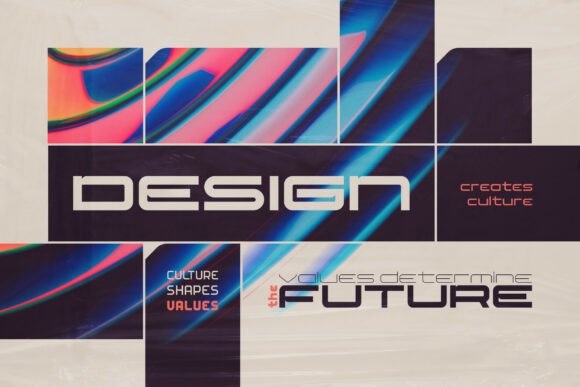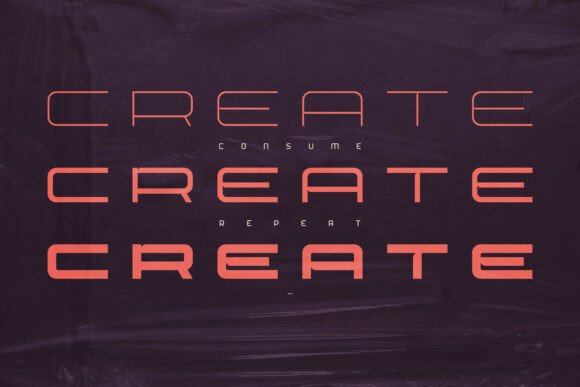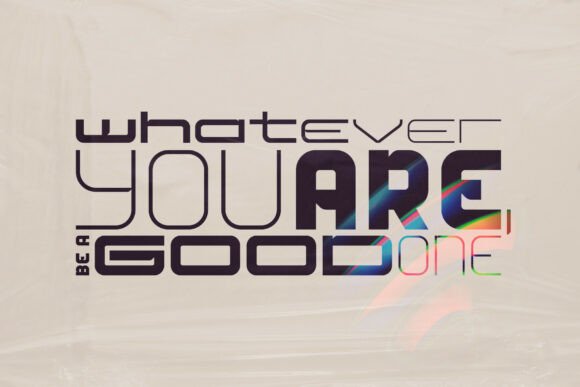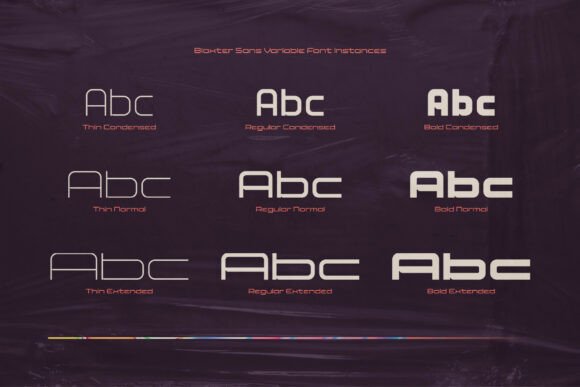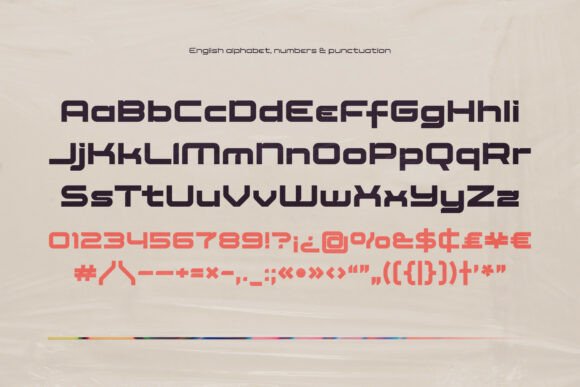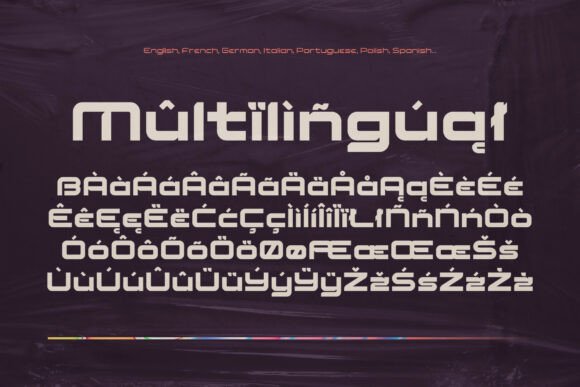
Introducing Bloxter Sans: The Futuristic Typeface for Modern Design
In the realm of typography, the right font can elevate a design from ordinary to extraordinary. For those seeking a bold, geometric voice that screams futuristic tech, look no further than the Bloxter Sans font family. This innovative typeface is specifically designed to meet the demands of modern design, offering a versatile and visually striking solution for UI, posters, logos, and more.
A Futuristic Typeface with Rounded Square Shape
Bloxter Sans is a variable sci-fi sans serif font that draws inspiration from square forms and cutting-edge technology. Its rounded square shape gives it a unique and approachable feel, setting it apart from more traditional typefaces. With a focus on bold geometry, Bloxter Sans is perfect for designers looking to add a touch of futurism to their work.
Wide Range of Variations
One of the standout features of Bloxter Sans is its impressive range of variations. The font family includes nine different weights and width versions, allowing designers to choose the perfect style to suit their needs. From wide and bold to narrow and light, Bloxter Sans offers unparalleled flexibility. Additionally, the all-in-one variable font makes it easy to experiment with different styles and find the perfect fit.
Perfect for UI, Posters, and Logos
Bloxter Sans is specifically designed with the modern designer in mind. Its geometric shape and bold voice make it perfect for a wide range of applications, including:
- UI design: Bloxter Sans is ideal for user interface design, adding a touch of futurism and sophistication to apps, websites, and more.
- Posters: The font’s bold geometry and wide range of variations make it perfect for creating eye-catching posters that demand attention.
- Logos: With its unique rounded square shape, Bloxter Sans is an excellent choice for logos that need to stand out from the crowd.
Multilingual Support
In today’s global design landscape, multilingual support is essential. Bloxter Sans delivers, offering a comprehensive character set that supports a wide range of languages. As shown in the screenshot, the font includes a full range of characters, ensuring that designers can create beautiful, functional text in any language.
- Variable sci-fi sans serif font
- Rounded square shape with bold geometric voice
- Nine different weights and width versions
- All-in-one variable font
- Multilingual support
- Perfect for UI, posters, logos, and more
Bloxter Sans is a game-changing font family that is sure to revolutionize the world of typography. With its futuristic design, bold geometric voice, and wide range of variations, it offers designers a versatile and visually striking solution for modern design. Whether working on UI, posters, logos, or more, Bloxter Sans is the perfect choice for those seeking a font that can keep up with their creative vision.